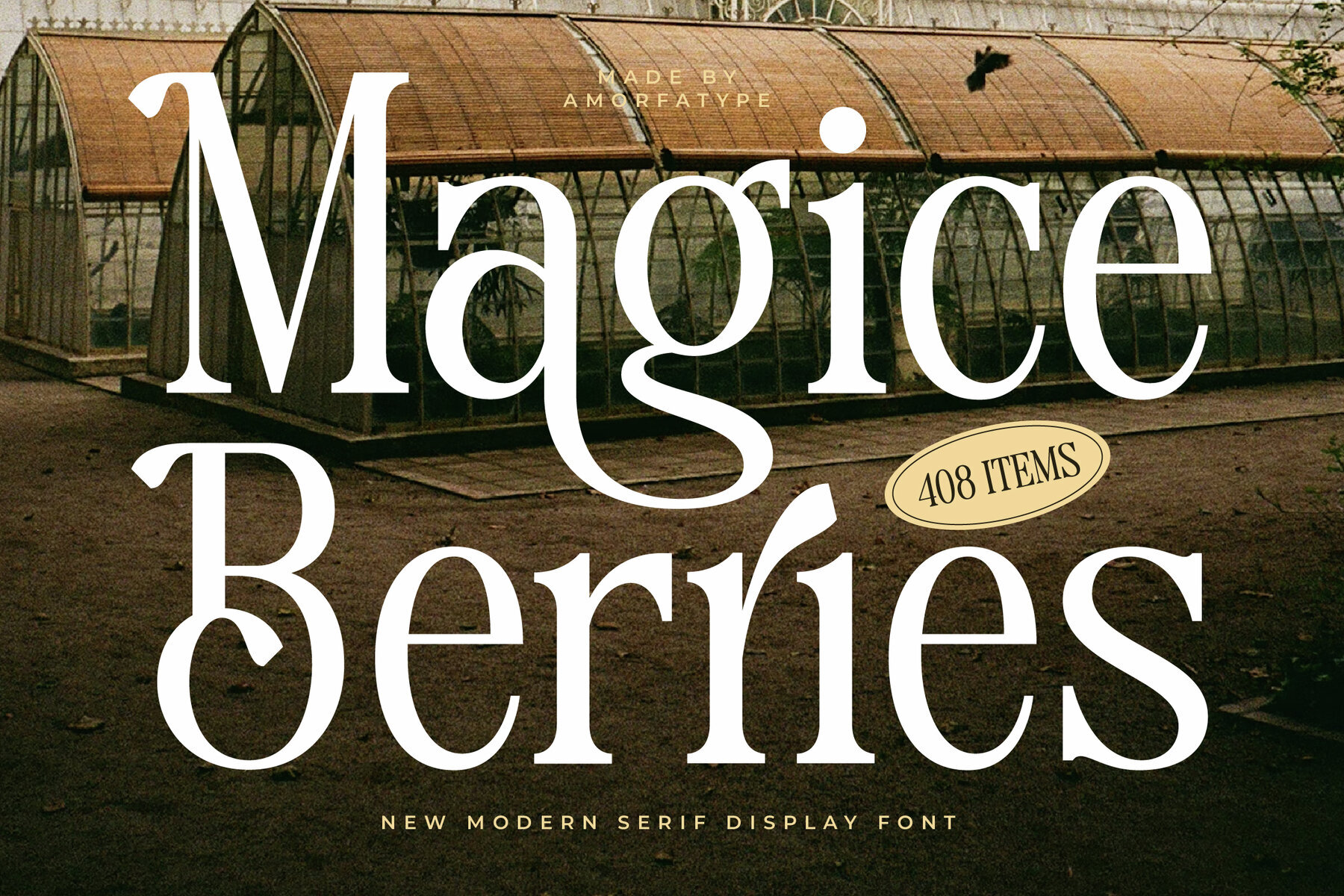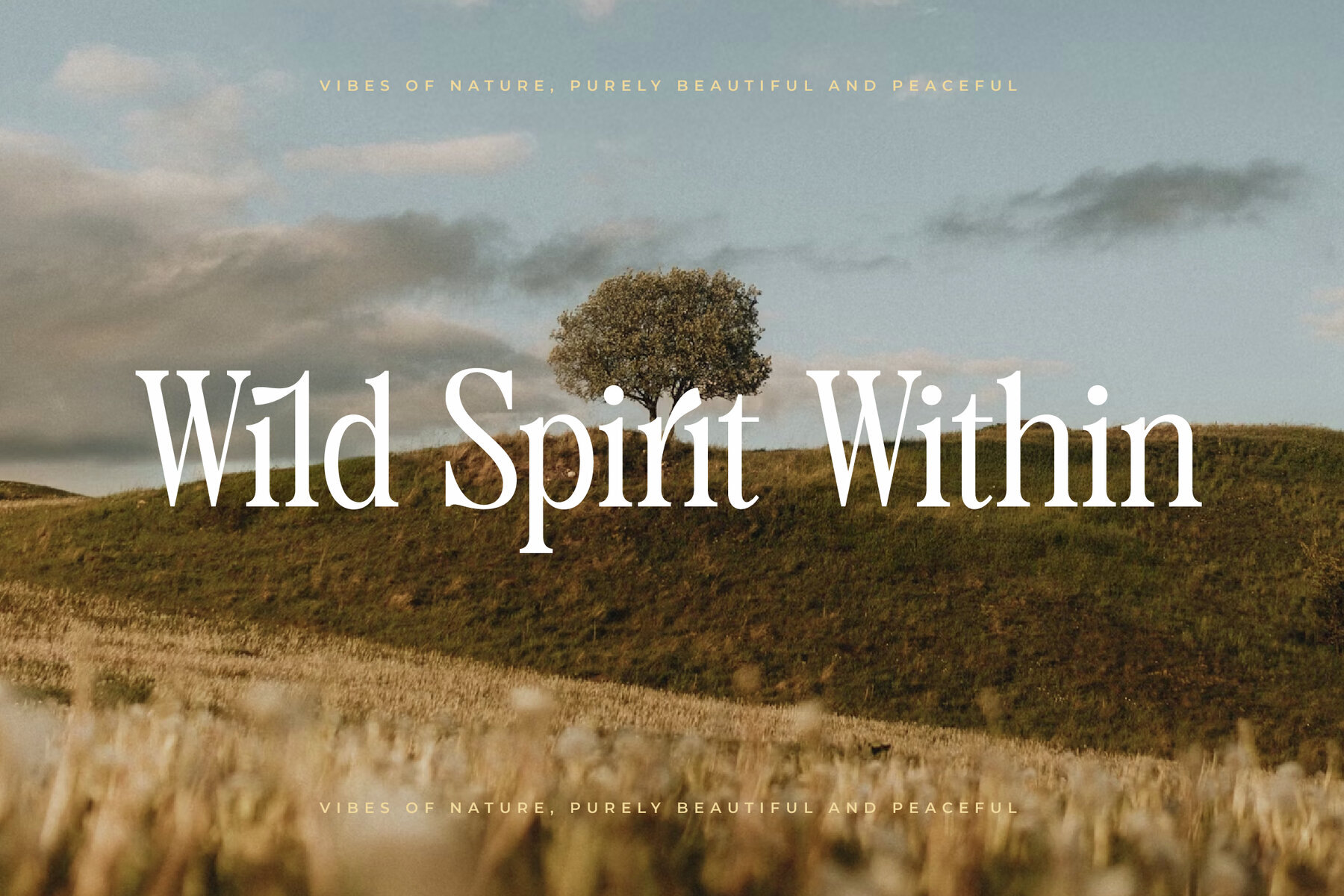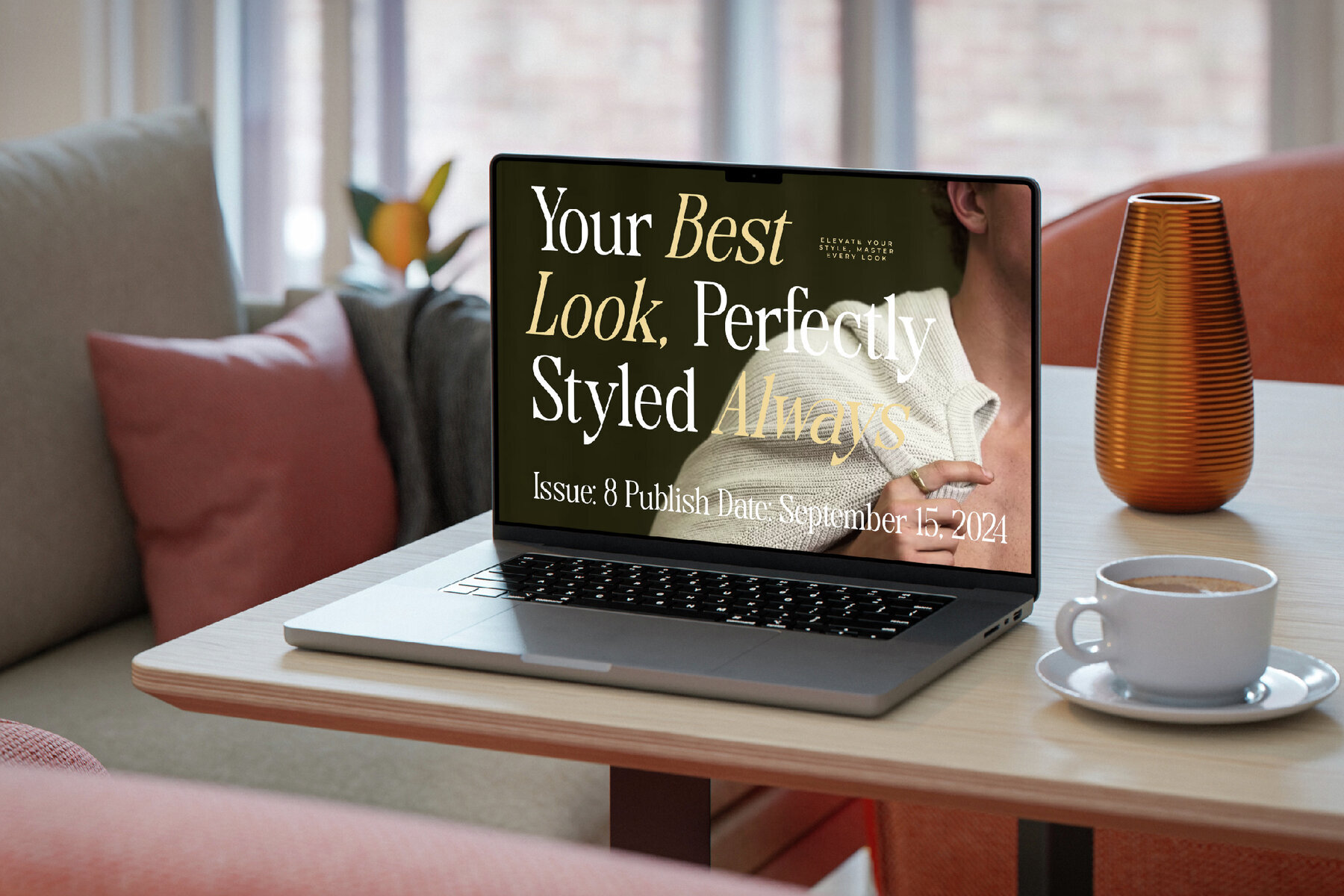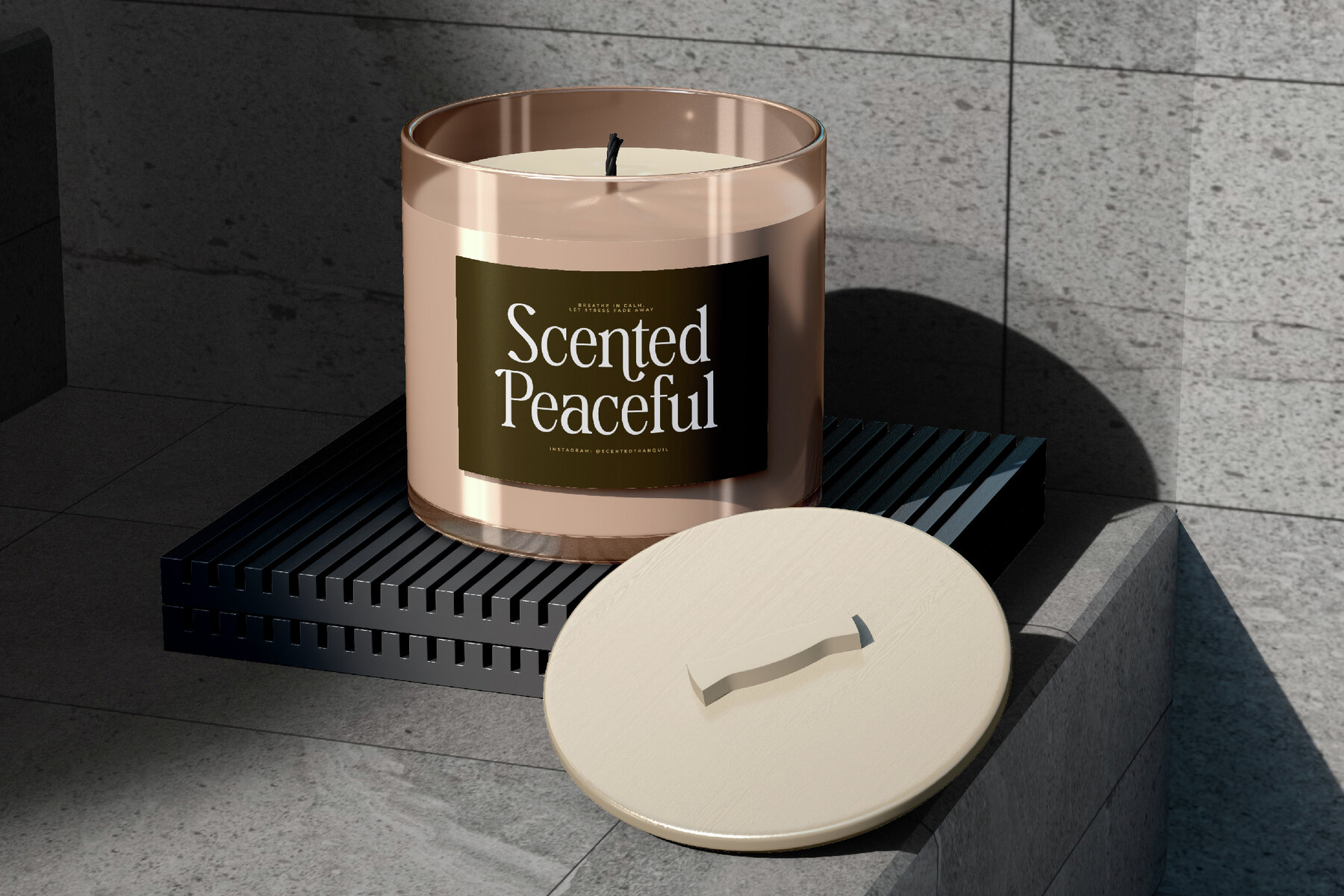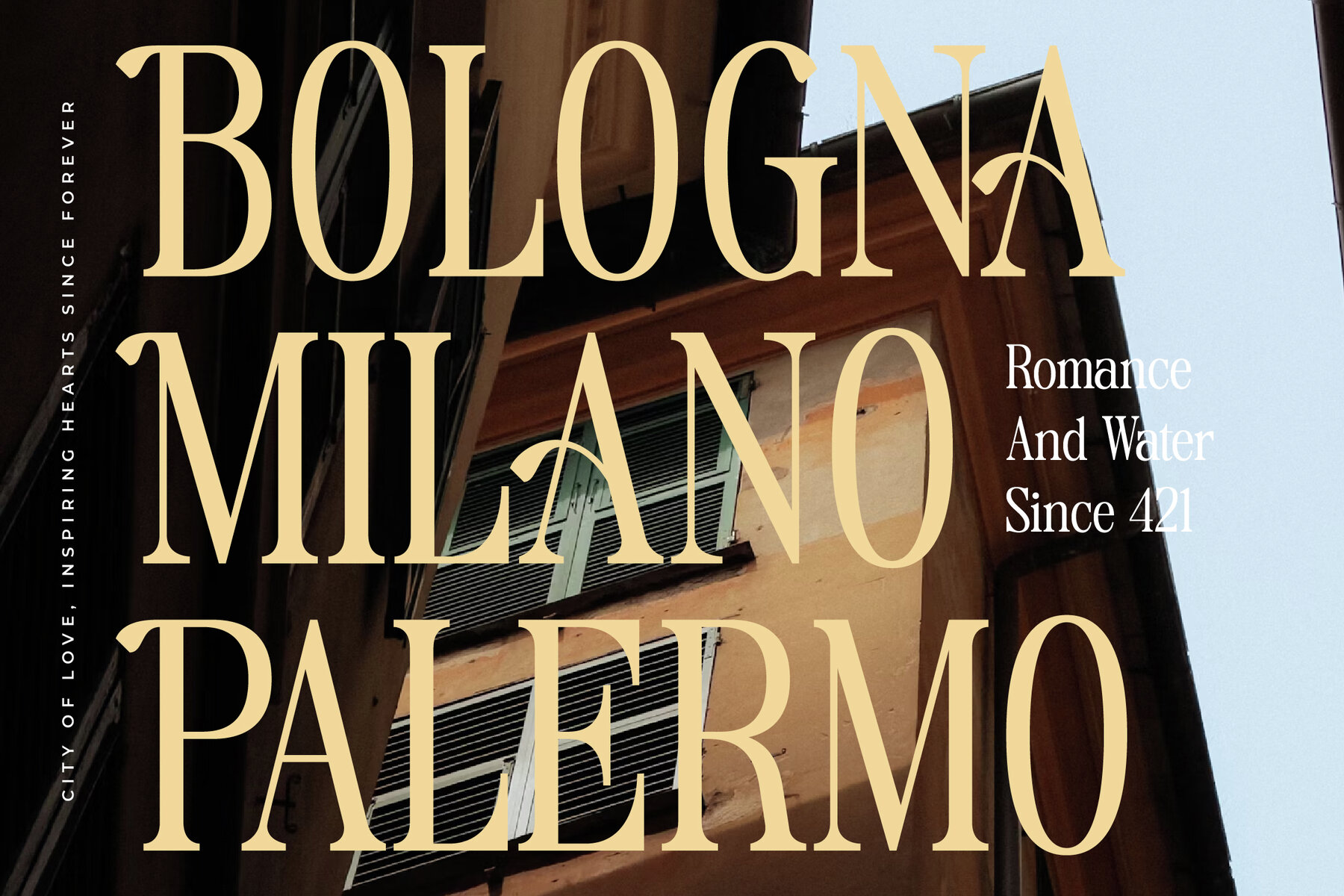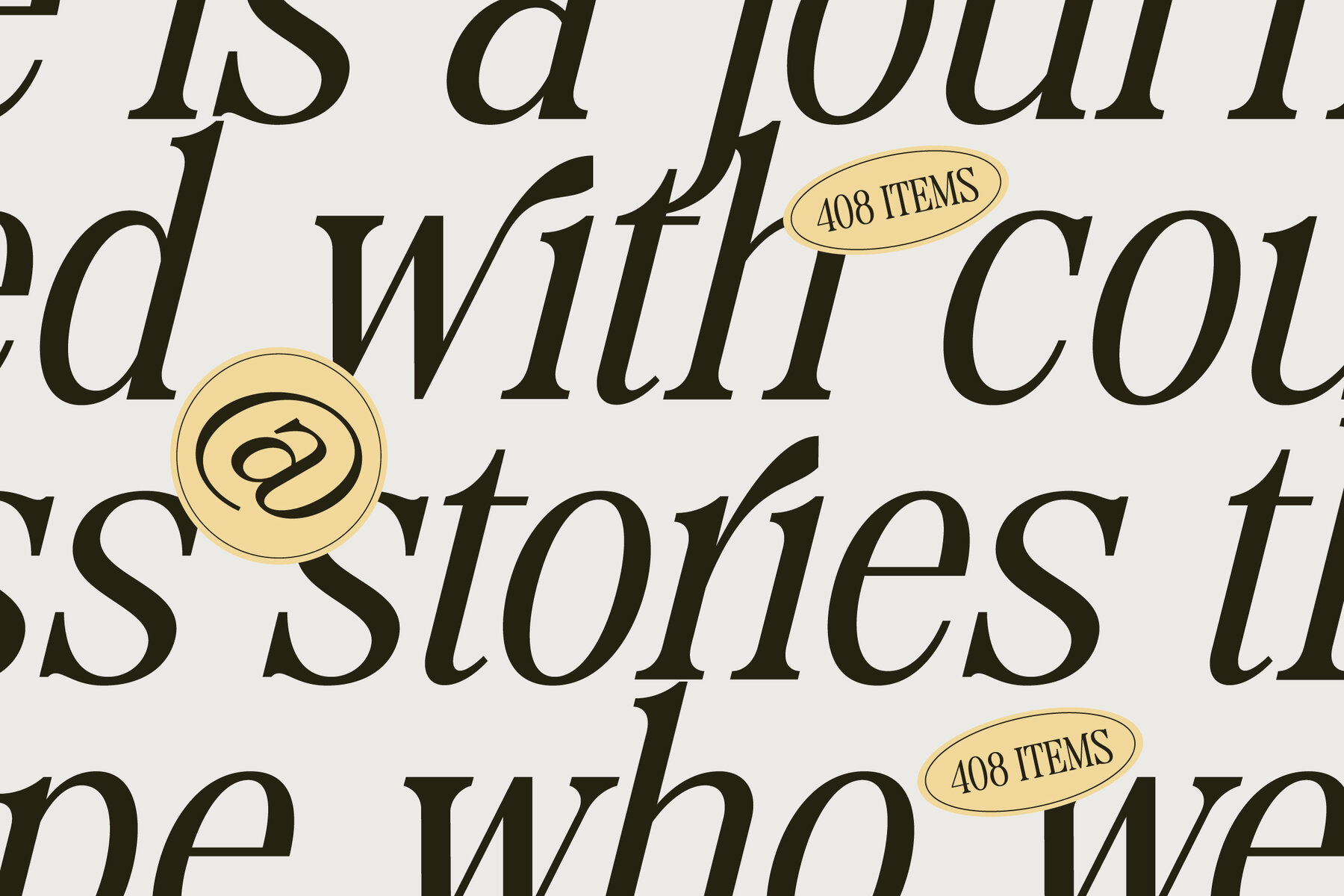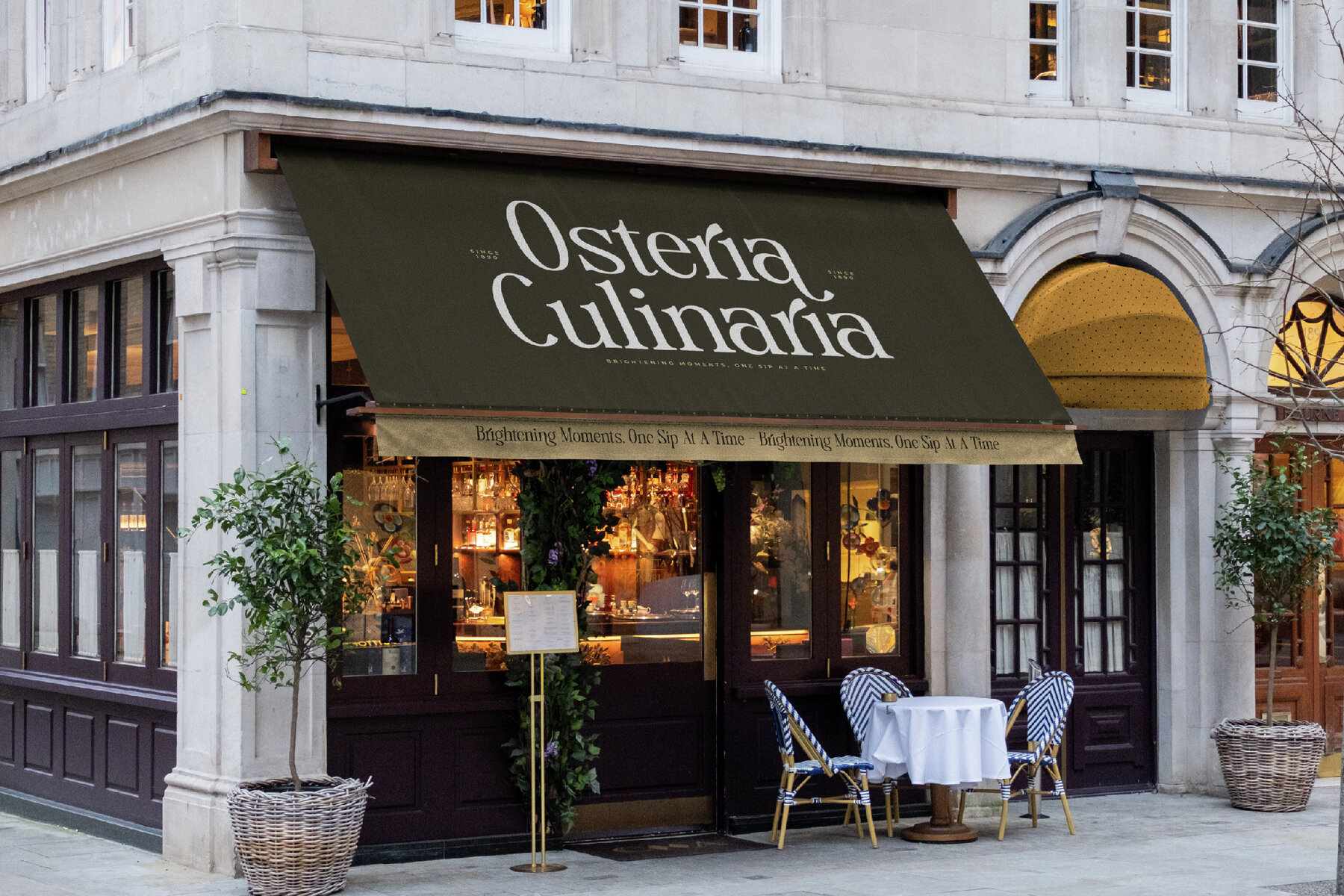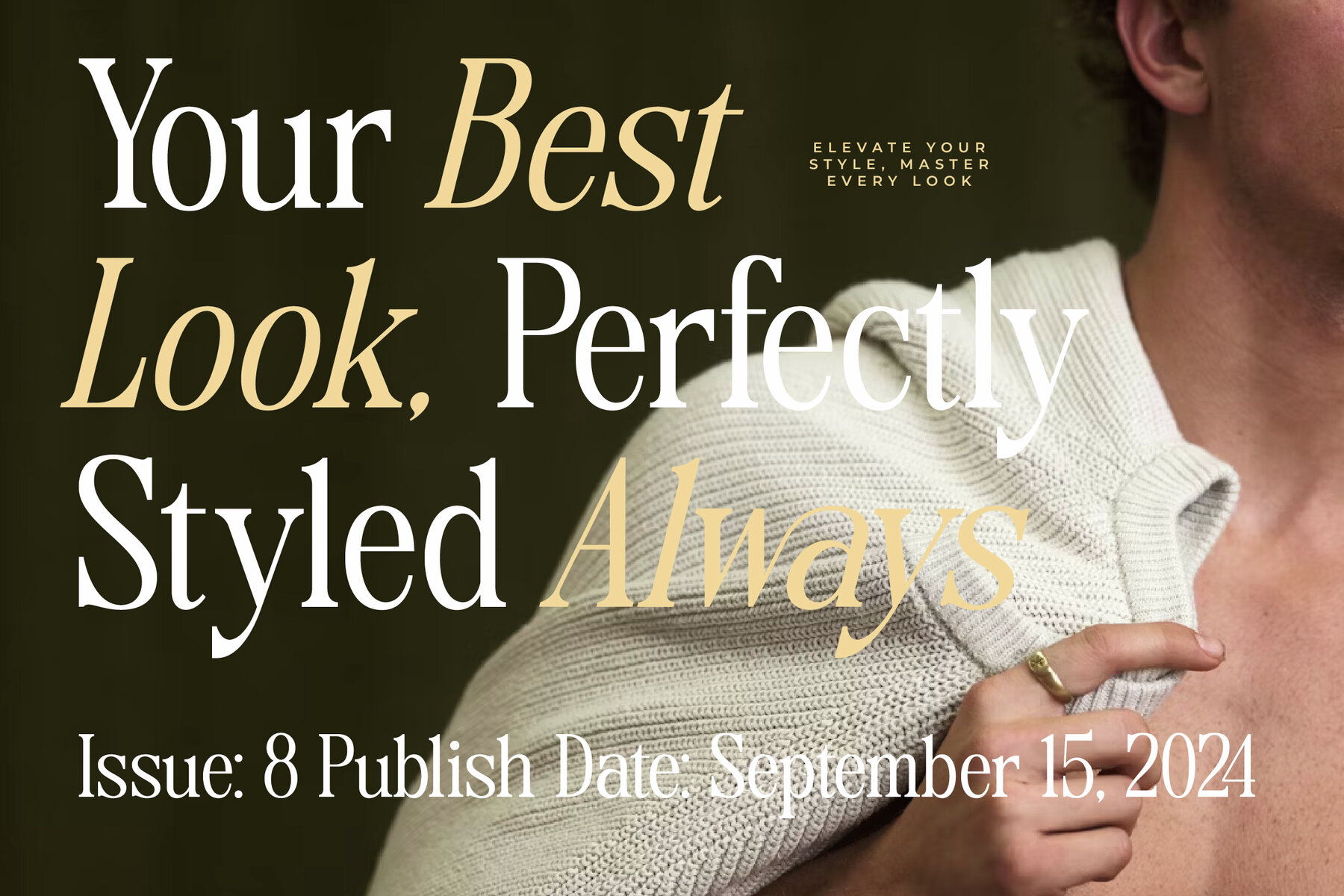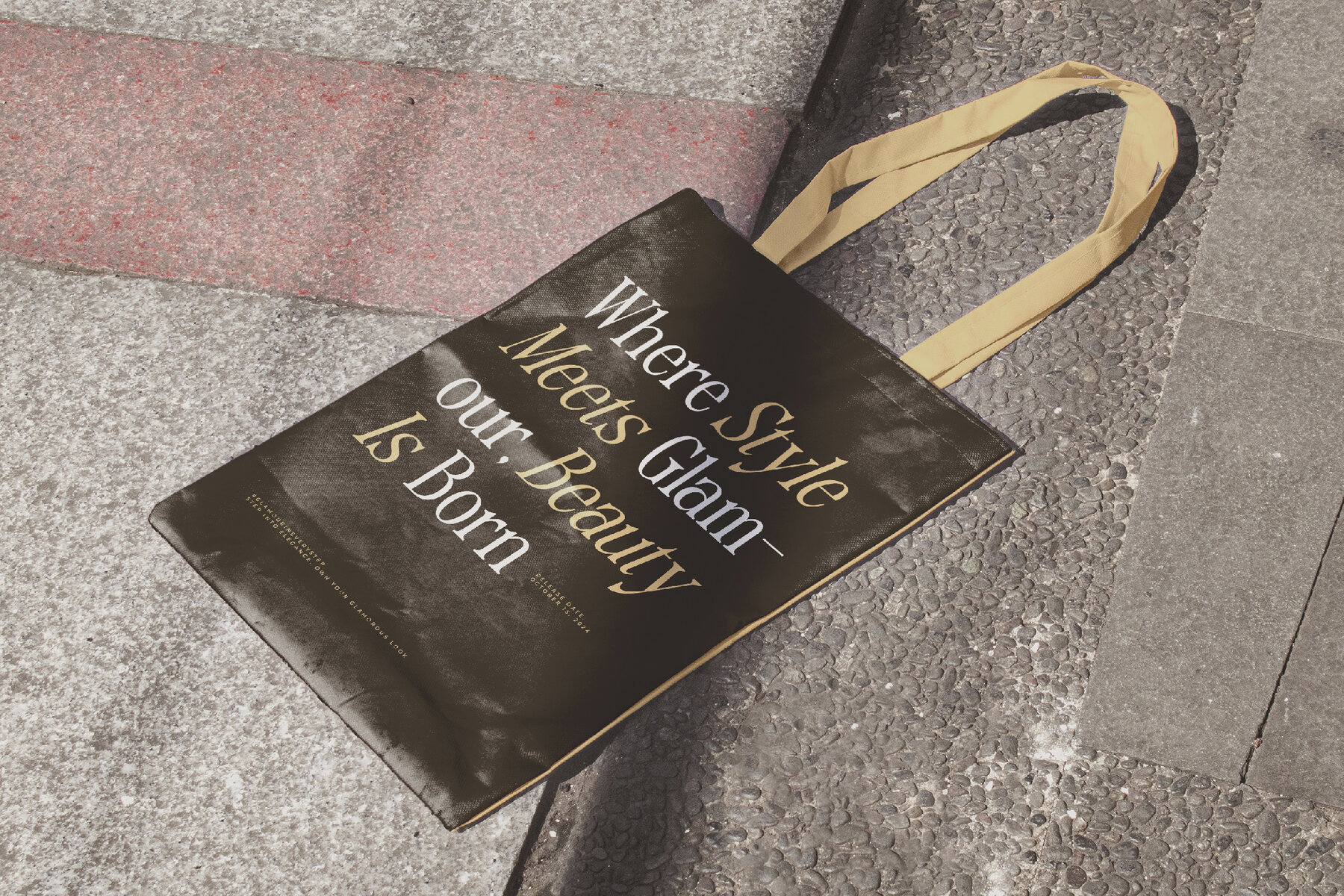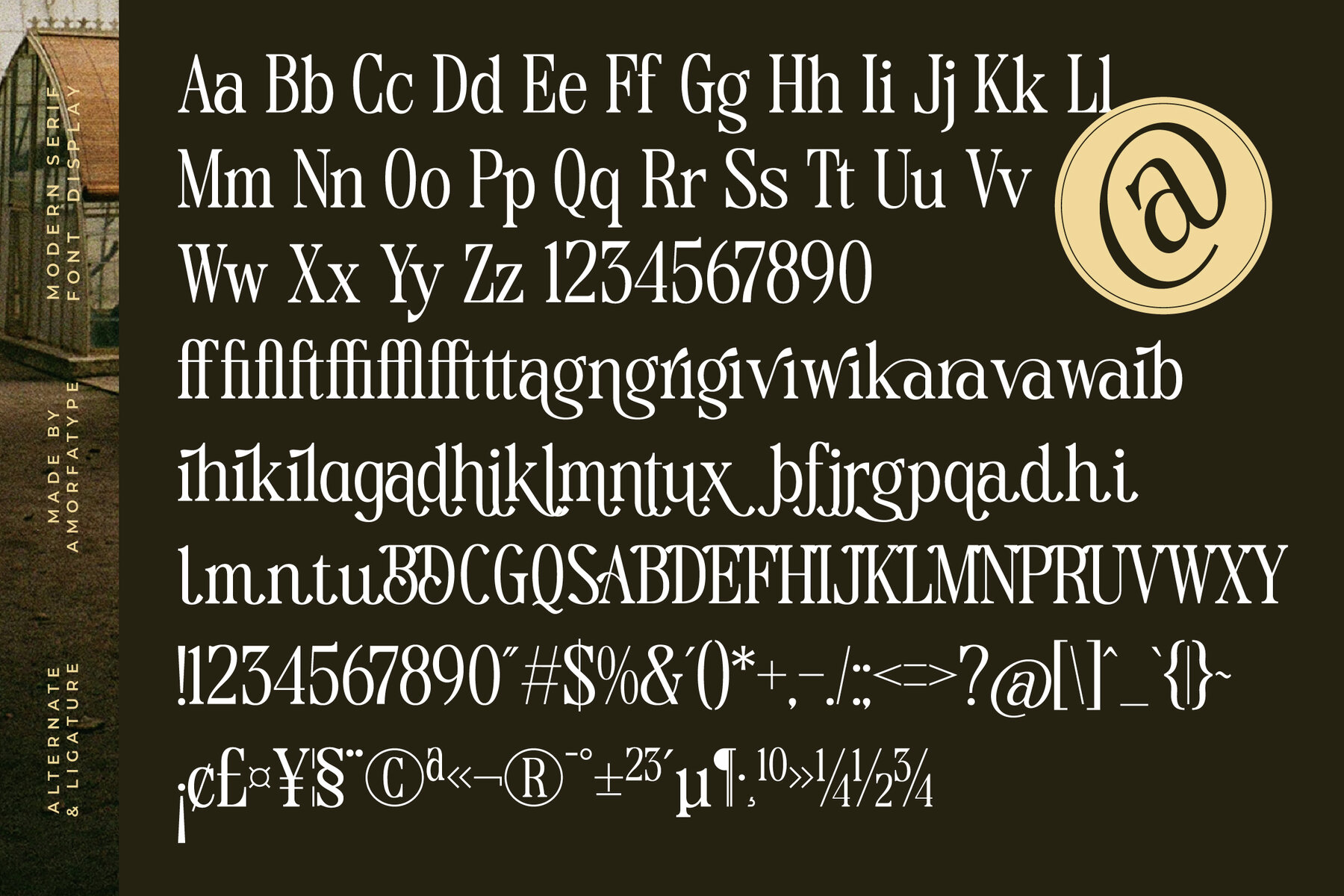
Magice Berries Font
Magice Berries offers a delightful blend of whimsical charm and elegant sophistication. With its soft curves and high contrast strokes, this modern serif font captures a magical, artistic essence while maintaining a polished, professional appeal. It’s ideal for those designs that need both personality and sophistication. Designed for versatility, Magice Berries excels in various creative applications. Whether you are working on romantic branding projects, editorial spreads, or elegant packaging, this font adds expressiveness and flair. Its careful design ensures readability, making it a suitable choice for modern designers seeking a fresh twist on the classic serif. Features:Magice Berries: Whimsical Yet Refined Serif